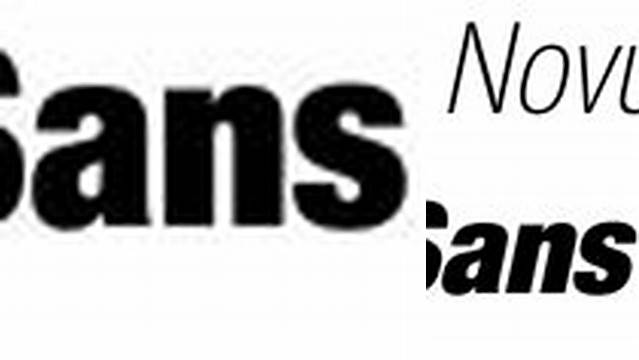
Hey guys! Are you on the hunt for the Nimbus Sans Novus STD Ultra Condensed Italic font and want to snag it for free? Well, you're in the right spot! This font is super popular for its sleek, modern look, and it’s perfect for adding a touch of elegance to your designs. In this article, we’re going to dive deep into everything you need to know about this font, where to find it, and how to use it effectively. Let's get started!
Nimbus Sans Novus: An Overview
Let's kick things off with a general overview of Nimbus Sans Novus. This font family is a real workhorse, offering a wide range of styles and weights that make it incredibly versatile. Whether you're working on branding, web design, or print projects, Nimbus Sans Novus has something to offer. Its clean lines and balanced proportions make it highly readable, while its various weights and styles allow you to create visual hierarchy and add emphasis where needed. When you are working with a client, ensure that you have the proper license for the font.
The Allure of Ultra Condensed Italic
So, what’s so special about the Ultra Condensed Italic version of Nimbus Sans Novus STD? Well, this particular style is all about making a statement. Its narrow width and slanted design give it a unique, eye-catching appearance that's perfect for headlines, titles, and other display purposes. The ultra-condensed format allows you to fit more text into a smaller space, while the italic slant adds a touch of sophistication and flair. It's a great choice for projects where you want to grab attention and convey a sense of style.
Using Nimbus Sans Novus in Branding
When it comes to branding, Nimbus Sans Novus can be a real game-changer. Its clean, modern look makes it suitable for a wide range of industries and applications. Use it in your logo, website, marketing materials, and more to create a cohesive and professional brand identity. The key is to use the font strategically, selecting the right weights and styles to communicate your brand's personality and values. For example, you might use the regular weight for body text and the bold weight for headlines to create visual interest and guide the reader's eye.
Web Design Applications
In web design, readability is key, and Nimbus Sans Novus delivers on that front. Its clear, legible characters make it a great choice for body text, ensuring that your website visitors can easily read and understand your content. Additionally, its various weights and styles allow you to create visual hierarchy and add emphasis to important elements. Use it for headlines, subheadings, navigation menus, and more to create a visually appealing and user-friendly website. Just be sure to optimize the font for web use to ensure fast loading times and a seamless user experience.
Print Design Projects
Nimbus Sans Novus isn't just for digital applications; it also shines in print design projects. Whether you're creating brochures, posters, flyers, or business cards, this font can help you achieve a professional and polished look. Its clean lines and balanced proportions make it highly readable, even in small sizes. Plus, its various weights and styles offer plenty of flexibility for creating visually interesting layouts. Experiment with different combinations to find the perfect look for your project.
Exploring Alternative Fonts
If you can't find the Nimbus Sans Novus STD Ultra Condensed Italic font for free or you're looking for something a little different, there are plenty of alternative fonts to explore. Fonts like Helvetica, Arial, and Open Sans offer similar qualities in terms of readability and versatility. Additionally, you can check out Google Fonts for a wide selection of free, open-source fonts that you can use in your projects. Just be sure to choose a font that complements your overall design and meets your specific needs.